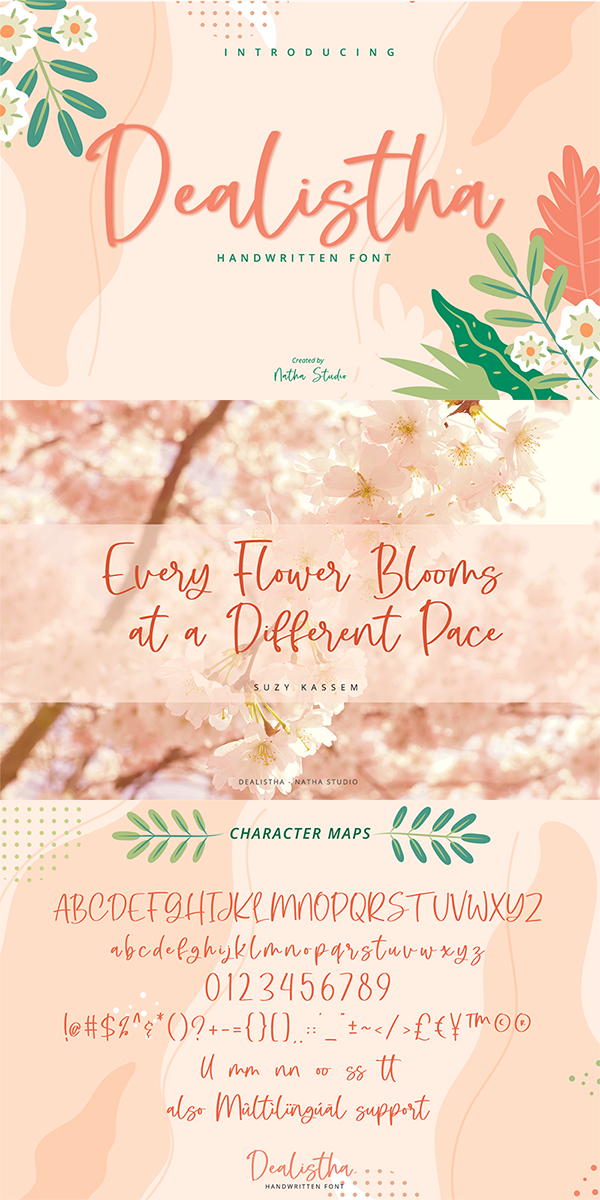
Dealistha Font
About Dealistha
Dealistha is a elegant handwritten font. It brings a beautiful and attractive typeface. Made for any professional projects. This font will look amazing in wedding invitations and greeting cards to social media quotes, branding, and more!
Featured :
-Standart Ligature